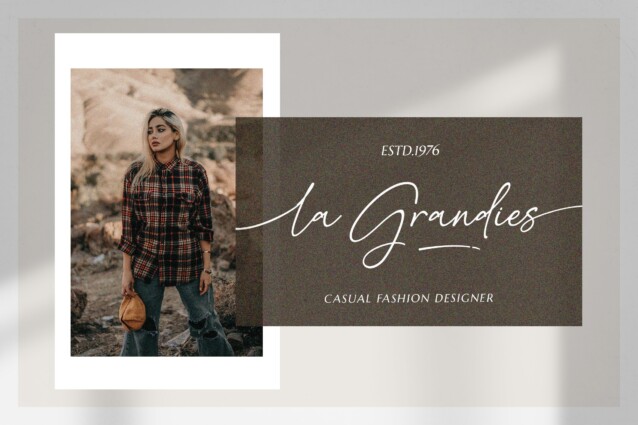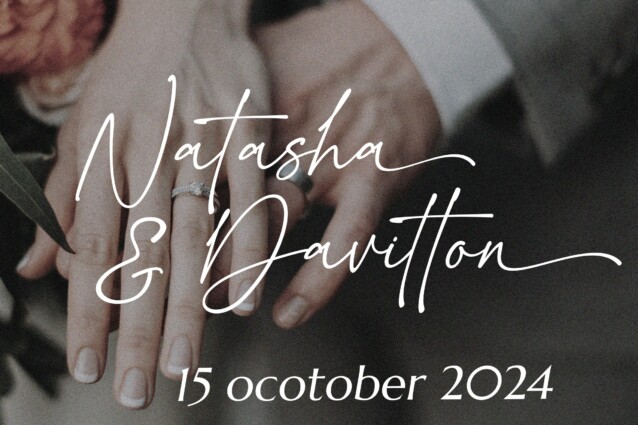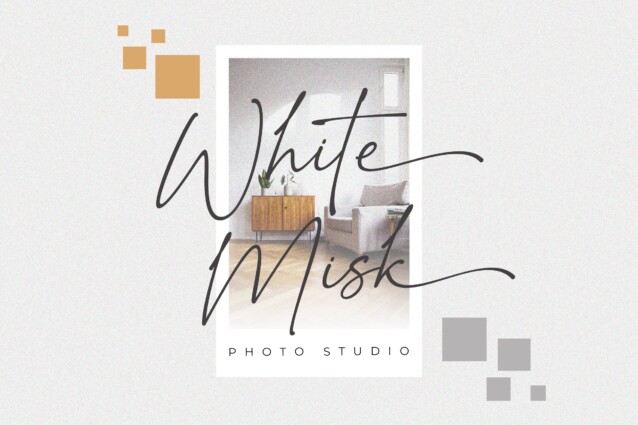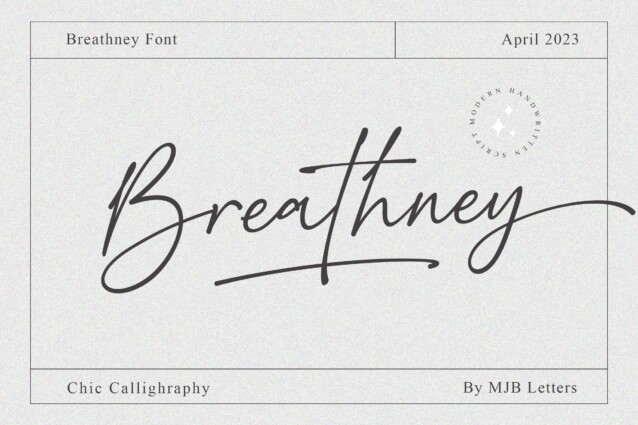
Breathney Font is a signature script font with beautiful strokes. With its soft, curved lines, it captures the uniqueness of human handwriting, adding a personal touch to graphic designs. Ideal for feminine, friendly projects like wedding invites, logos, and posters, Breathney brings warmth and authenticity. Enhance your designs with its gentle, organic aesthetic, conveying a heartfelt message.